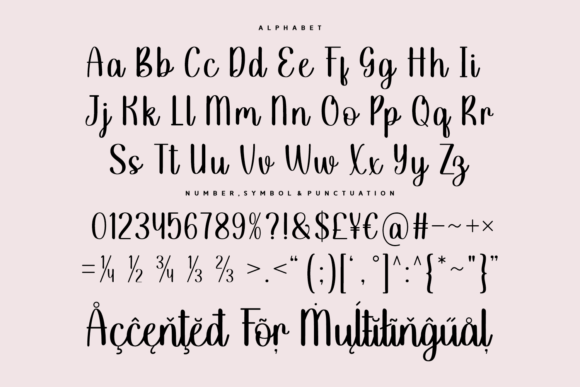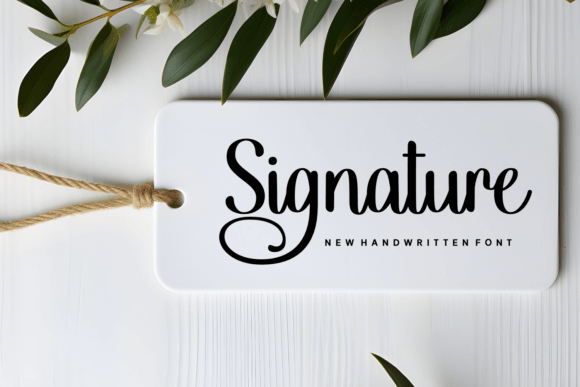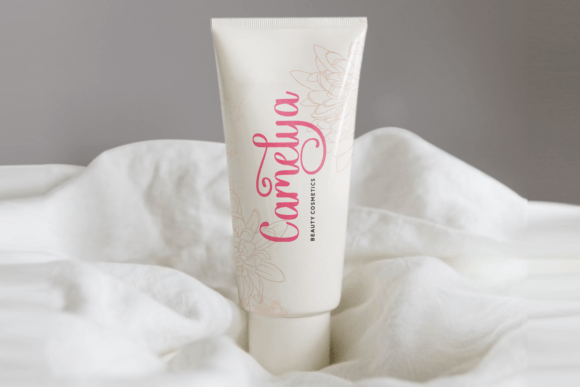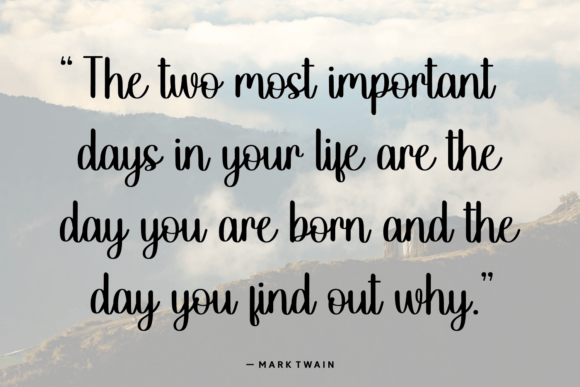
Introduction to Grosh Font
Grosh is a bold and elegant script font with a playful yet sophisticated charm.
Its thick strokes and stylish curves make it perfect for branding, packaging, logos, or bold statement headlines Whether youโre creating wedding invitations or eye-catching social media graphics, Grosh delivers a versatile and luxurious look.
Key Features of Grosh Font